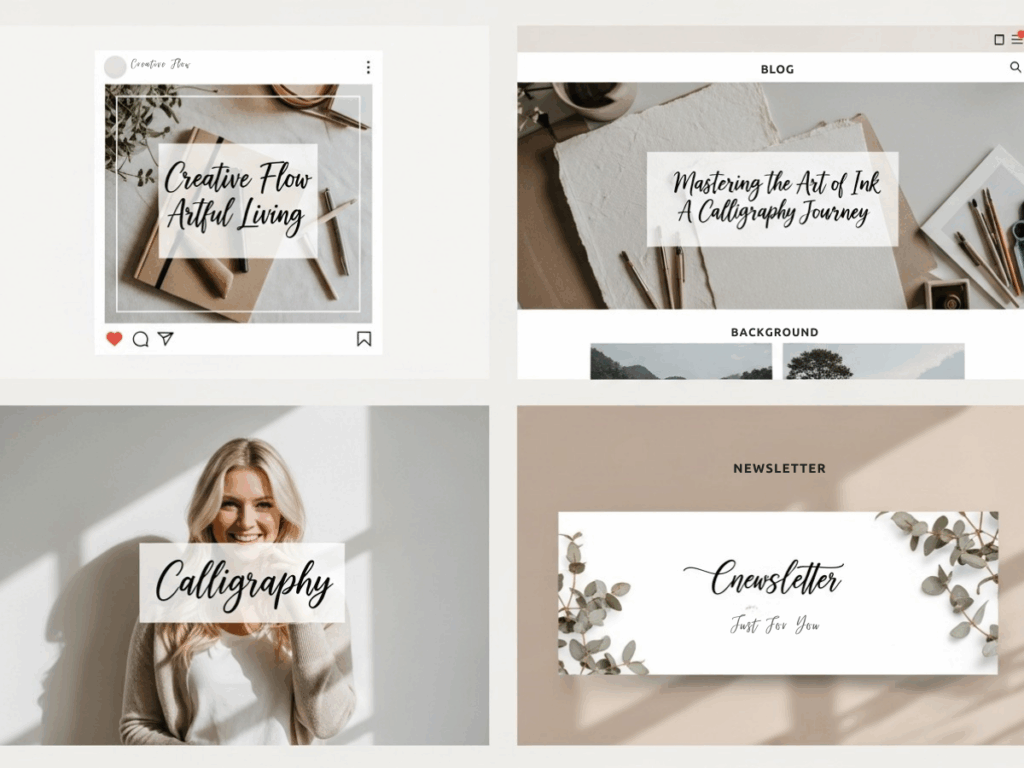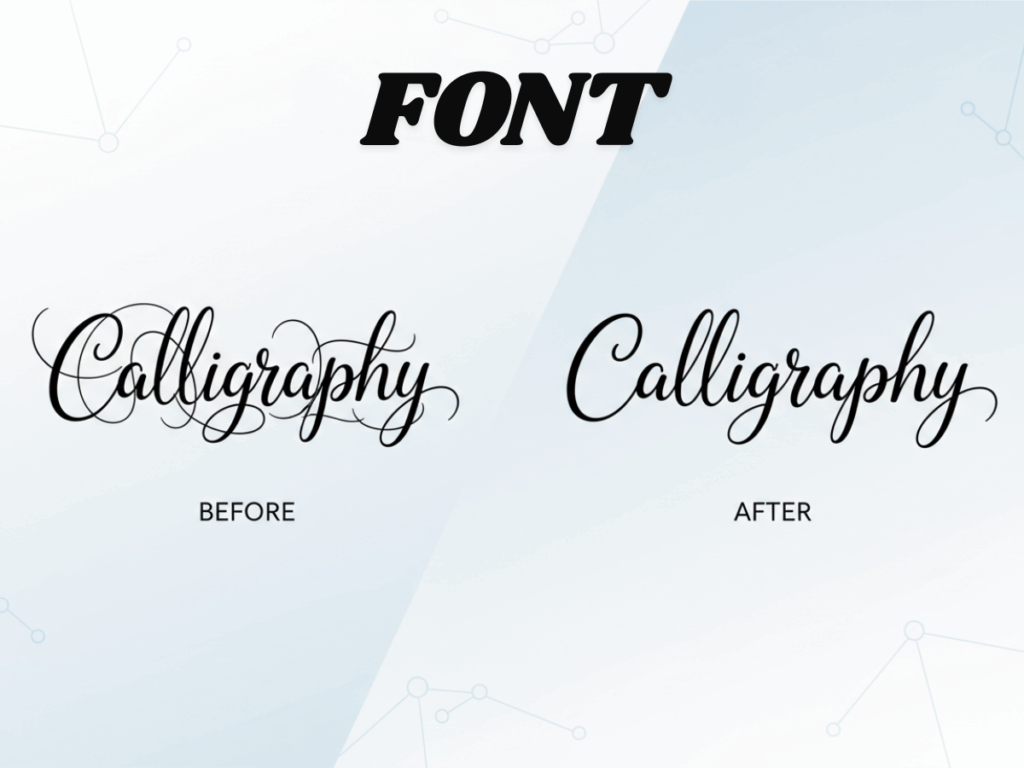
Free Calligraphy Font Generator: How to Solve “AI Sameness”
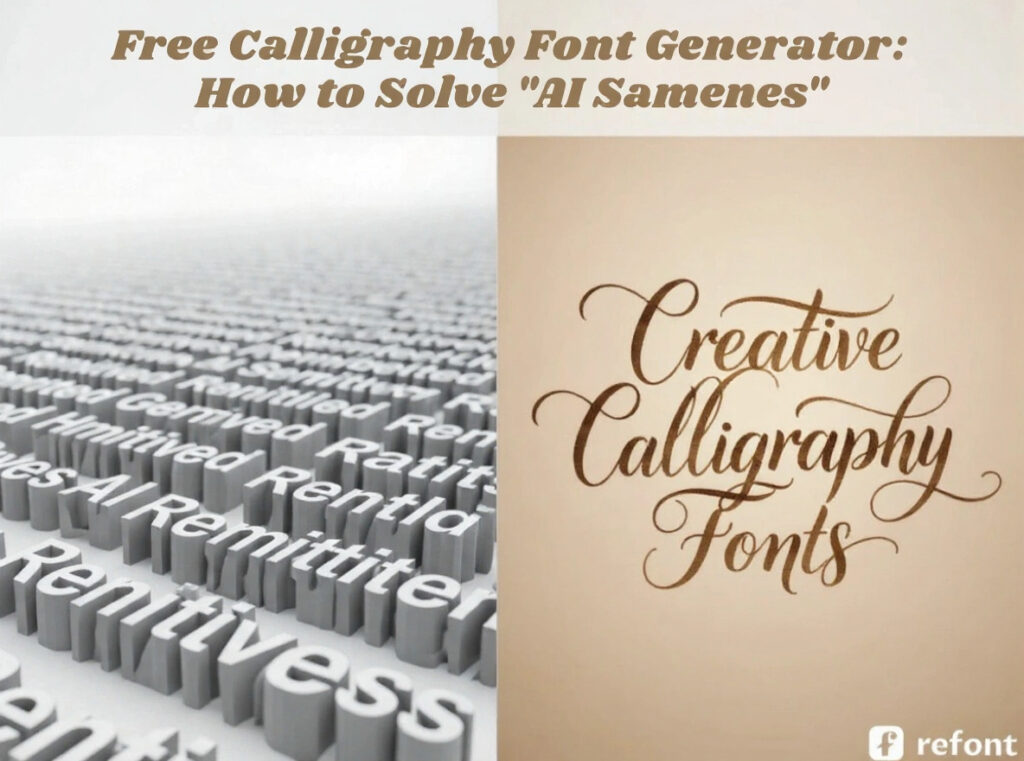
The digital landscape of 2026 has hit a saturation point. With the proliferation of Large Language Models (LLMs), the barrier to entry for content creation hasn't just dropped; it has effectively vanished. While this democratizes information, it creates a massive "homogenization trap." When everyone uses the same prompts, they receive the same structured advice, the same rhythmic sentences, and—most detrimentally—the same bland visual presentation.
This is the core challenge of AI content differentiation. If your blog post, Instagram quote, or business proposal looks like a carbon copy of a thousand others, your audience’s brain will subconsciously categorize it as "noise" and skip it. Let’s be honest: nobody wants to follow a brand that looks like it was birthed by a spreadsheet. To break through, you need more than just good words; you need a visual signature. This is where a free calligraphy font generator becomes your secret weapon in the fight against digital blandness.
The AI Content Problem: When Everything Starts to Look the Same
We are currently living through a "bland-pocalypse." Most AI-generated platforms default to clean, clinical sans-serif fonts like Roboto, Inter, or Open Sans. While readable, they lack soul. They feel like a hospital hallway—functional but cold. To combat this, creators are rediscovering the power of aesthetics. Using a free calligraphy font generator allows you to splash some "architectural paint" on those digital walls.
It signals to the reader that a human, not just a bot, curated this experience. For freelancers and small business owners, this visual distinction is the difference between a bounce rate of 90% and a loyal follower who stays to read. We are no longer in a race to produce the most content; we are in a race to produce the most memorable content. Using a free calligraphy font generator ensures that even if your text was brainstormed with AI, its final delivery feels bespoke and artisanal.
Why Visual AI Content Differentiation Matters More Than Ever
The "One Second Rule" is the new gold standard for digital marketing. Research shows that users form an opinion about a website or a social media post in approximately 50 milliseconds. In that blink of an eye, they aren't reading your deep, philosophical value proposition; they are feeling your brand's energy.
This is why a free calligraphy font generator is a high-ROI tool for modern creators. If your header is rendered in a beautiful, flowing script, you immediately convey elegance, effort, and authority. It suggests that you didn't just "copy-paste" text from a chatbot. You actually took the time to design the experience. This instant AI content differentiation acts as a filter, attracting the right audience while signaling quality.
The Psychology of Script: Adding Human Warmth to AI Text
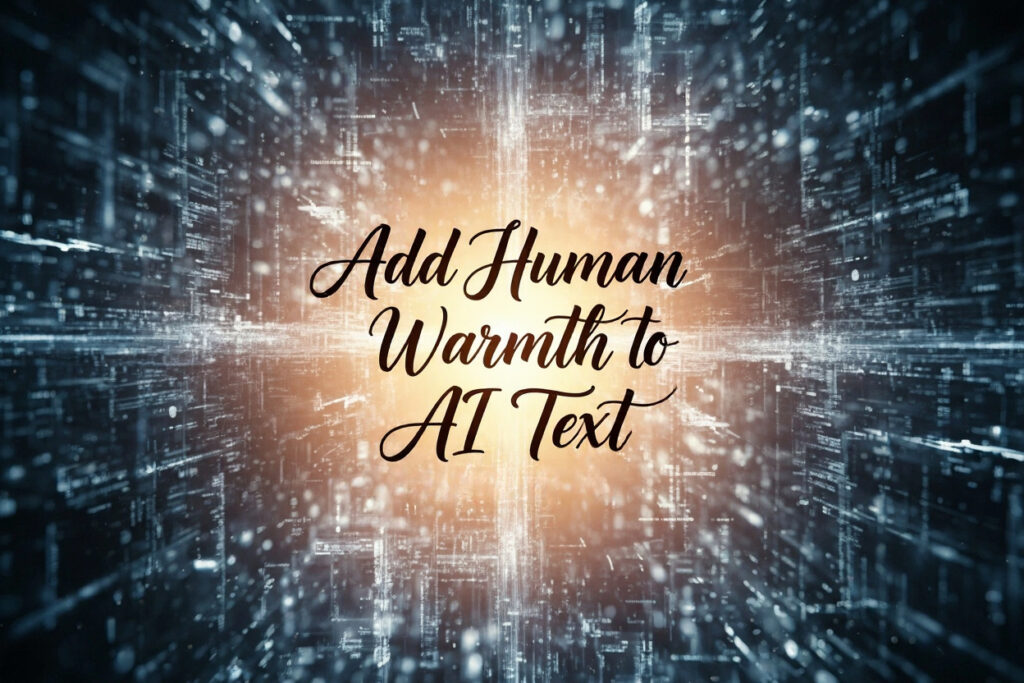
There is a psychological phenomenon known as the "Uncanny Valley," where something looks almost human but feels slightly "off." Much of today's AI content falls into this valley—it’s too perfect, too structured, and ultimately, too boring. By utilizing a free calligraphy font generator, you inject intentional imperfection and organic flow back into the digital page.
The loops, swashes, and ligatures of a script font mimic the movement of a human hand. This human touch is the ultimate weapon for AI content differentiation. It breaks the clinical sterile feeling of AI text. When a potential client sees a personalized header generated by a free calligraphy font generator, their mirror neurons fire, connecting the visual to human effort. This creates an emotional bridge that text alone often fails to build.
Turning Generic Text into a Signature Style
In a marketplace of ideas, your "Visual ID" is your copyright. Using a free calligraphy font generator allows you to move away from "standard web styles" and toward a "signature style." Consider the difference between a plain text logo and one that uses a custom-curated script. One looks like an invoice; the other looks like an invitation.
For creators on platforms like Substack or Medium, where the layout is often restricted, the few places you can customize—like your headers and banners—become incredibly valuable. Implementing unique calligraphy text ideas ensures your content has a "vibe" that AI cannot easily replicate. It turns your information into an experience, ensuring that your AI content differentiation is baked into the very fabric of your presentation.
Don't let your ideas die in a sea of sans-serif. Use our free calligraphy font generator to give your words the home they deserve. Explore new calligraphy text ideas, push the boundaries of your brand, and watch as your engagement metrics finally start to reflect the quality of your ideas.